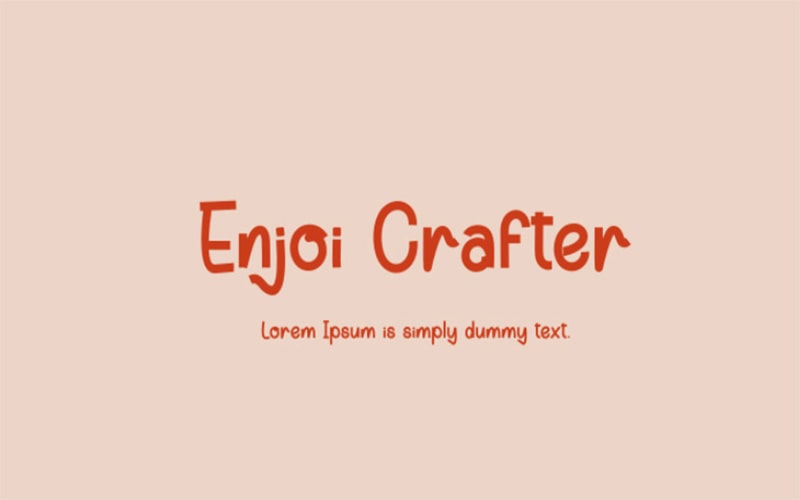
Enjoi Crafter Font is an elegant unique display typeface. Its smooth and clear texture adds value to any artwork that makes your work more elegant.
Eknoji is known as the primary designer of the Enjoi Crafter typeface who designed this font first time to give a beautiful look to your designs.
This display typeface is available in a single style like the “Enjoi Crafter Regular” font style. This style gives an attractive look to the font.
An elegant font can be used for a variety of formal and informal text designs, such as in logos, banners, hoarding, labeling, business card printing purposes, and educational works.
This dazzling display typeface is used in different creative works. It looks gorgeous and magnificent and has simple, capital, and plain thin letters.
Due to its awesome look, this font can also be used in photography, watermarks, stationery, product packaging, advertisement, and many more.
This awesome font contains 121 glyphs and 210 special characters including Basic Latin, Latin-1 Supplement, Latin Extended-A, General Punctuation, and different symbols.